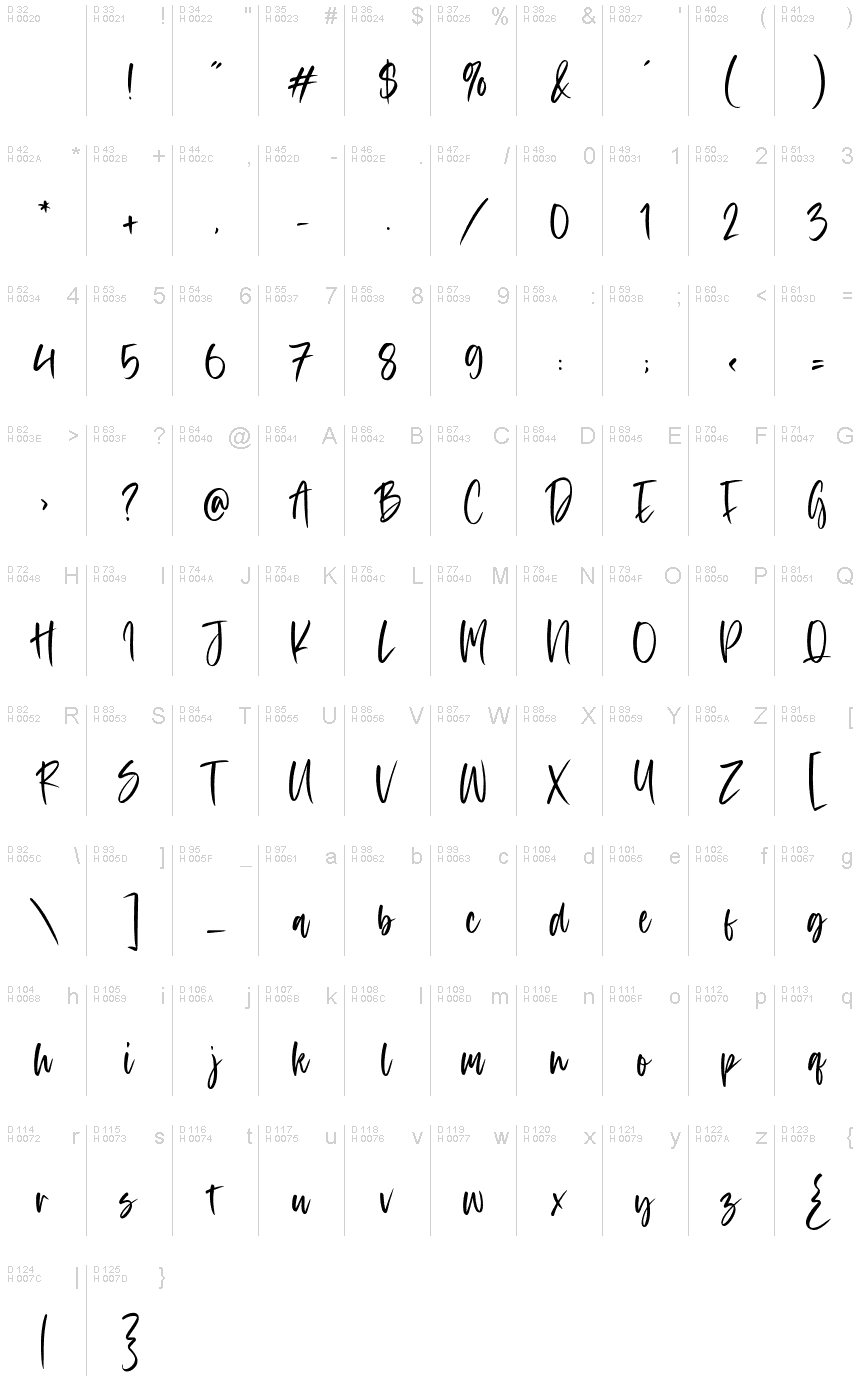
Acordian
Acordian, the latest creation by Balpirick Studio, is a captivating handwritten font that exudes an air of elegance and sophistication. With its semi-light weight and semi-condensed width, Acordian is perfect for adding a touch of grace to various projects.
Its fluid strokes and delicate curves lend themselves seamlessly to wedding invitations, greeting cards, and feminine branding materials. Additionally, the font's playful yet refined style makes it an ideal choice for creating eye-catching logos or adding a personal touch to blog headers. Let Acordian's charm sweep you away into a world of creativity and beauty.